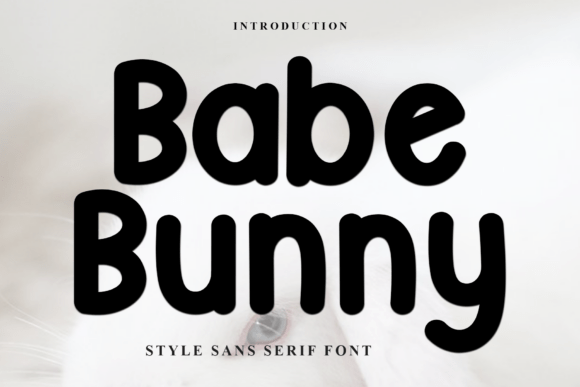
The Babe Bunny Font: A Playful Companion for Your Creative Projects
I’ll never forget the time I was working on a whimsical invitation for a friend’s baby shower. I had all the design elements in place – the colors, the graphics, the overall aesthetic – but something was missing. That’s when I stumbled upon the Babe Bunny font, and it instantly brought my design to life! The warm, friendly vibe it exuded was perfect for the occasion, and I knew right then that I had to share this gem with fellow creatives.
An Honest Review of Babe Bunny Font
What I Love About Babe Bunny ✨
- ✅ The casual, creative feel that makes any project feel approachable and fun
- ✅ The round, playful strokes that add a touch of whimsy to designs
- ✅ The charming, hand-drawn aesthetic that sets it apart from more generic fonts
While Babe Bunny is an excellent font, there are a few things to keep in mind:
- 🤔 It may not be the best fit for very formal or professional projects, as its playful nature might not align with the tone you’re aiming for.
- ⚠️ Some users might find that the font’s casual feel doesn’t work well with very long blocks of text.
The Story Behind Babe Bunny Font
The Babe Bunny font was designed with the intention of creating a typeface that feels both personal and creative. The designer aimed to craft a font that would be perfect for projects requiring a touch of warmth and friendliness. While the exact details about the designer might be scarce, it’s clear that the goal was to make a font that feels approachable and fun, suitable for everything from invitations to social media graphics.
Q: What is the Babe Bunny font best used for?
A: Babe Bunny font is ideal for personal projects, invitations, social media graphics, and any design that requires a friendly, approachable feel.
Q: Is Babe Bunny font suitable for professional or formal projects?
A: While Babe Bunny has a lot of charm, it might not be the best fit for very formal or professional projects due to its playful nature.